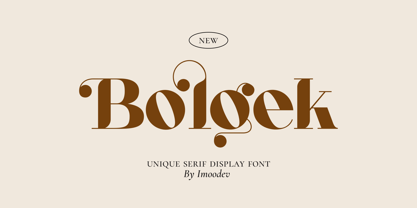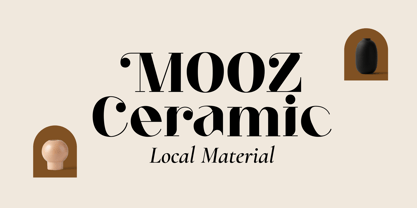
Bolgek
by Imoodev
The Bolgek Font Family was designed by Aulia Savira Putri and published by Imoodev. Bolgek contains 1 styles.
Bolgek is a sophisticated serif display font have these gorgeous swirl details. “Bolgek” carries a hint of old-school charm (think Art Nouveau flourish) but you can also sense modern influences. The thick-thin contrast of the strokes gives it that classy, high-contrast serif aesthetic.
Each character exudes a sense of grandeur, making Bolgek particularly well-suited for headlines, editorial titles, magazines, posters, or artistic book covers, logos, and promotional materials. For branding: especially for luxury, fashion, or beauty industries that want a dash of drama.
Its refined proportions and distinctive swashes convey both elegance and artistic flair, resulting in a versatile typeface that stands out across digital and print mediums alike.